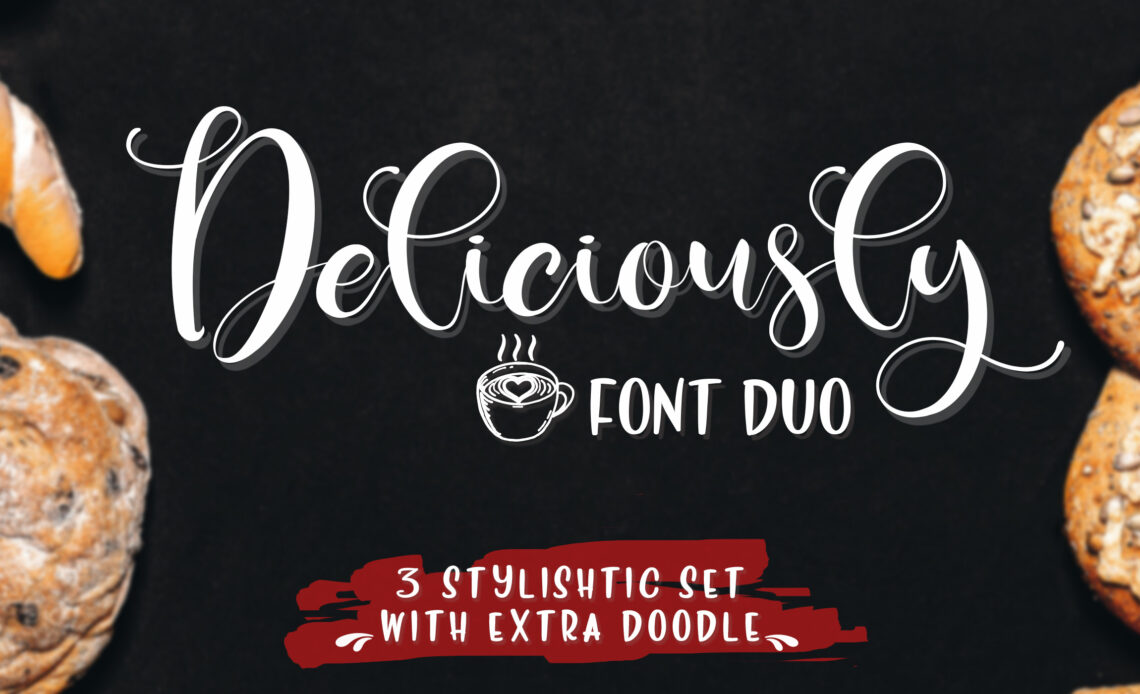
Introducing the Deliciously Font Duo, a captivating and versatile addition to your font collection! Created by the renowned Din Studio, this stunning duo is designed to bring a branded and friendly vibe to all your projects.
With its exquisite calligraphy styled handlettered script, Deliciously adds a touch of elegance and authenticity to any design. The script font features a wide range of stylistic alternates, allowing you to find the perfect look for your text. From graceful swashes to delicate ligatures, this font has it all!
But that's not all – Deliciously also includes a sleek sans serif font. This clean and modern typeface serves as the perfect complement to the script, adding a touch of simplicity and versatility to your designs. Pair them together or use them separately, the choice is yours!
To further enhance your creativity, Deliciously comes with a delightful collection of illustrations. These charming extras are designed to add an extra sprinkle of magic to your projects. From floral elements to decorative ornaments, these illustrations are perfect for creating eye-catching logos, invitations, packaging, and more.
Whether you're a professional designer, a small business owner, or simply looking to add a touch of elegance to your personal projects, Deliciously is the ultimate choice. Its versatility makes it suitable for a wide range of applications, from branding and advertising to social media graphics and beyond.